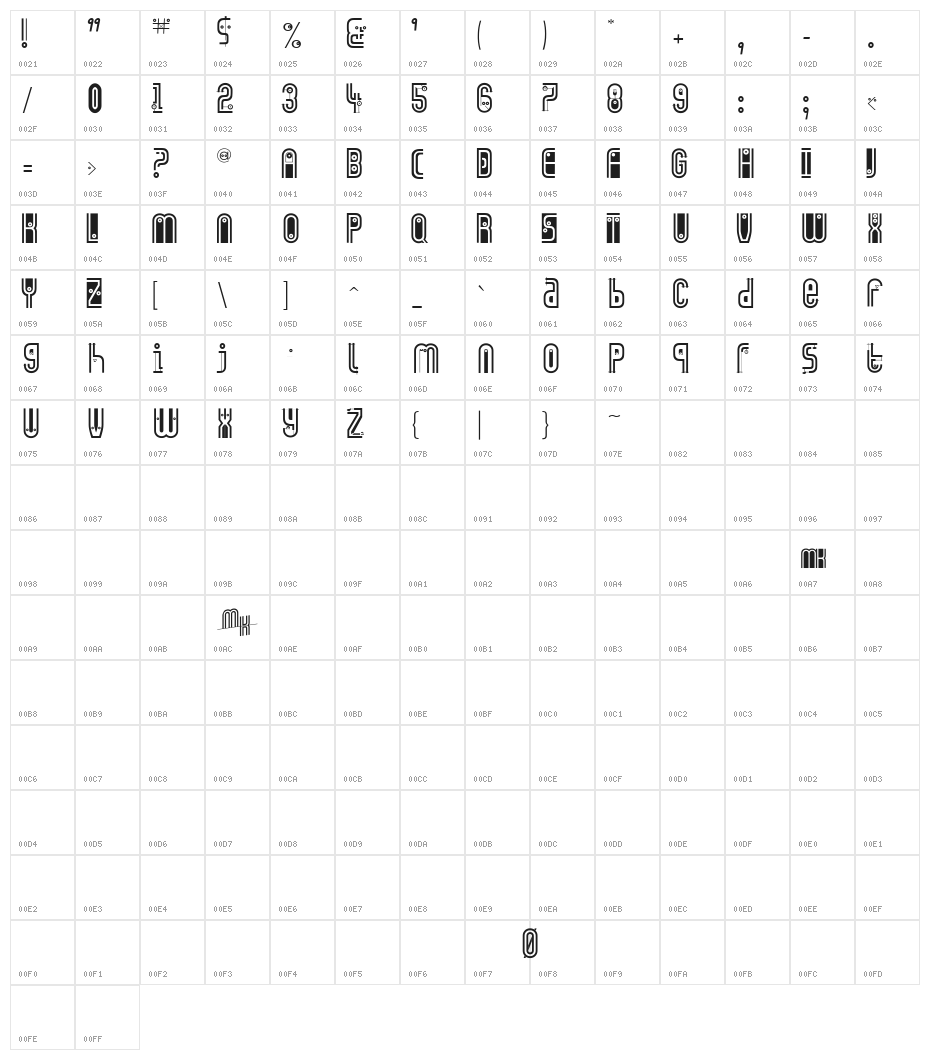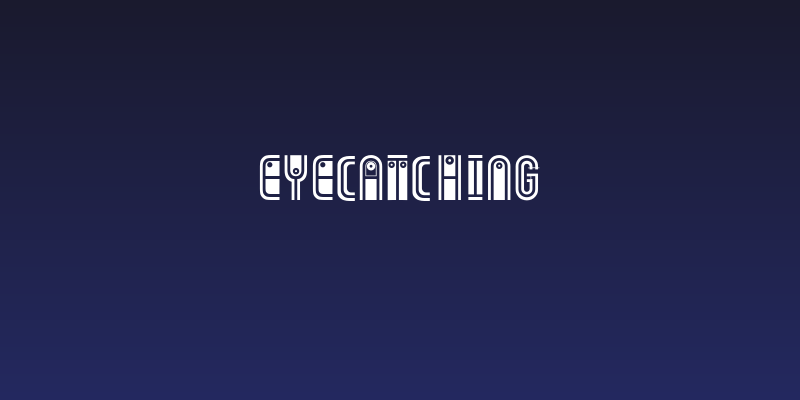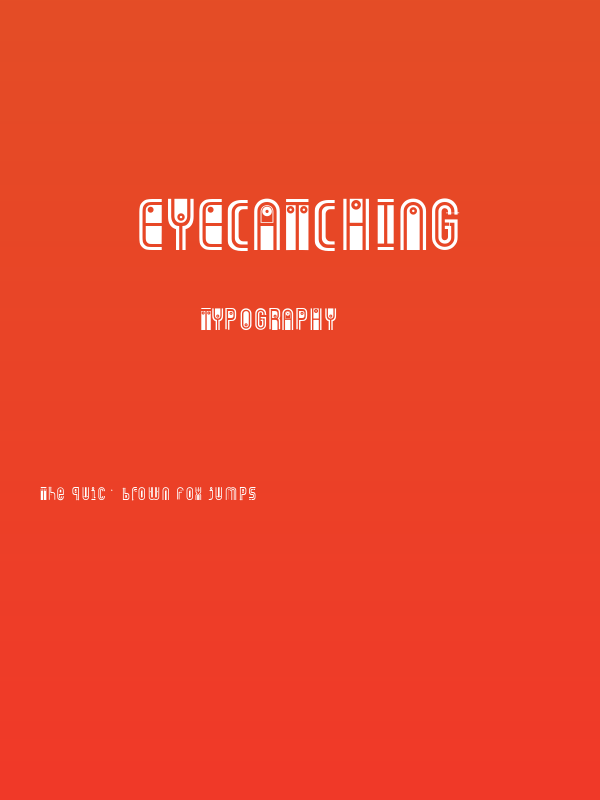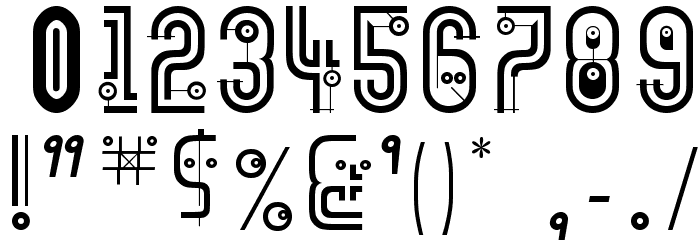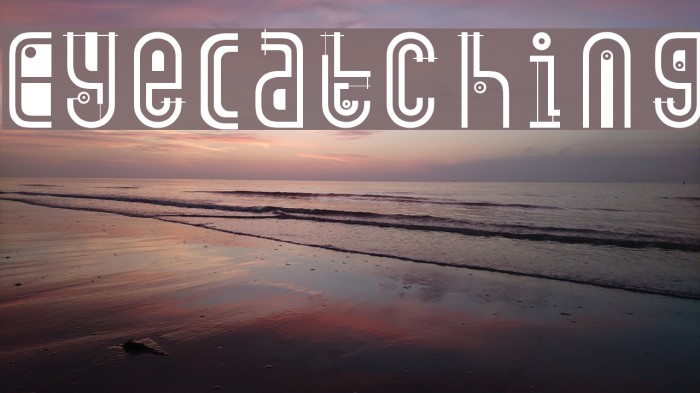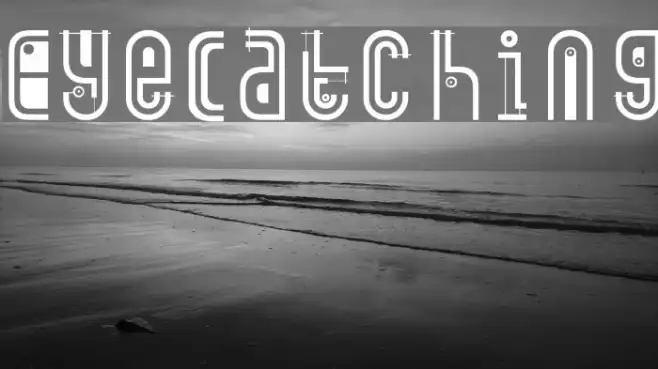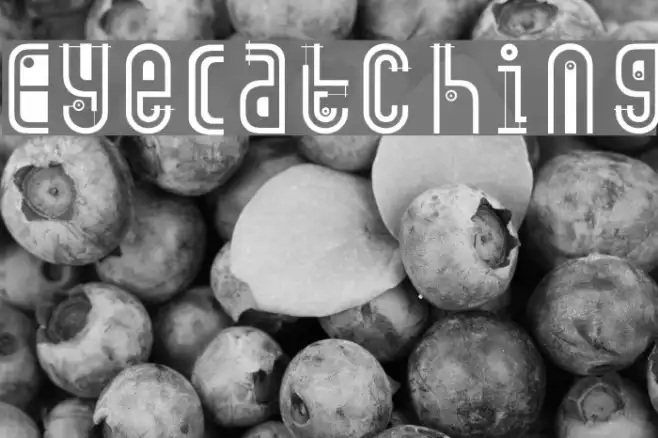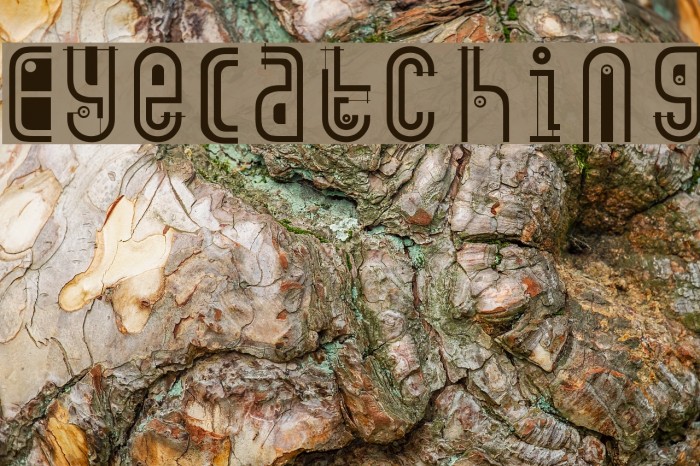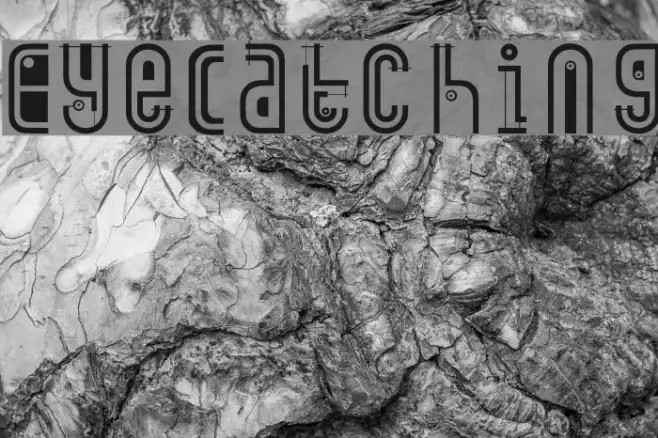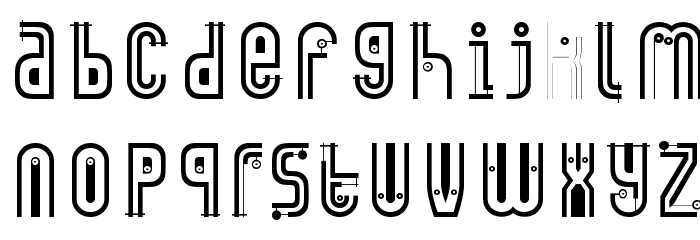
EyeCatching Font
EyeCatching Description
This font is a bold and decorative typeface that features a unique combination of geometric shapes and intricate details. Each character is designed with a blend of solid and outlined elements, creating a striking visual contrast. The uppercase letters are particularly eye-catching, with bold strokes and circular embellishments that add a playful yet sophisticated touch. The lowercase letters maintain the same geometric style, offering a cohesive look across the typeface. Numbers and special characters are equally detailed, ensuring consistency and versatility in design applications.